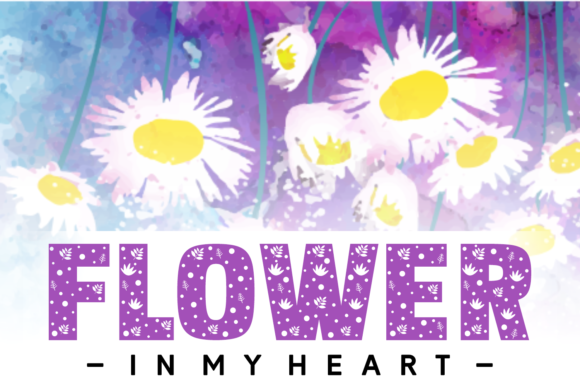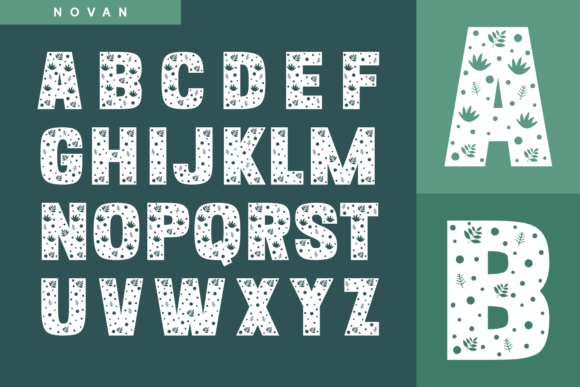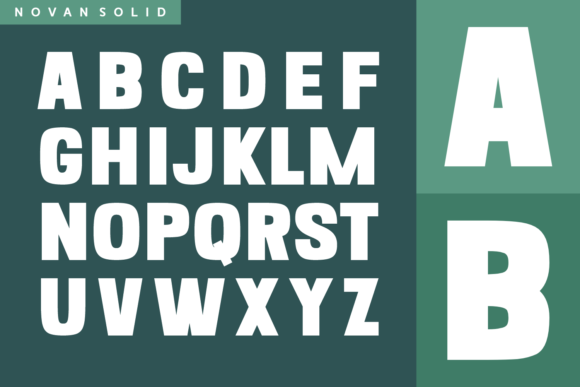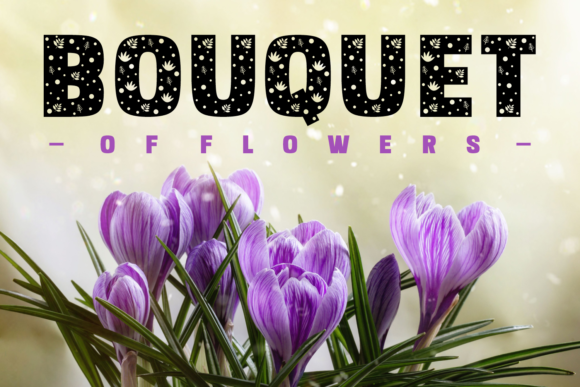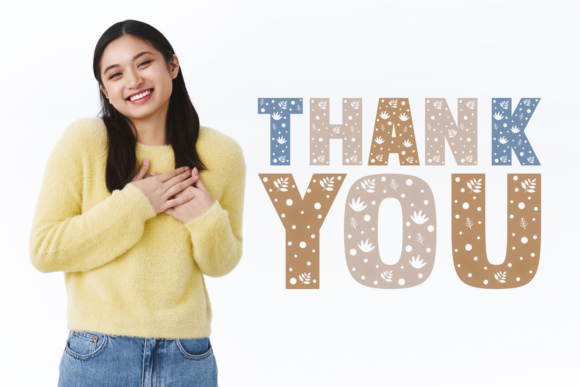
Introduction to Novan Duo Font Font
Fonts play a crucial role in design, and the Novan Duo Font font is a typeface that brings both character and versatility to any project. Whether you’re working on a branding project, a website, or a print design, the Novan Duo Font font offers a unique style that can elevate your work.
Novan is Duo decorative font inspired by nature with leaves and dots.
This duo font is available in the Solid and Regular versions It has an elegant and modern look that you can use for logos, branding, invitations, stationery, wedding designs, social media posts, and every other design.
Key Features of Novan Duo Font Font
Why Choose Novan Duo Font Font?
The Novan Duo Font font is more than just a typeface – it’s a design tool that helps you communicate your message with style and clarity. Its unique character set and versatile design make it suitable for a wide range of applications, from elegant invitations to bold headlines.
With its carefully crafted letterforms and balanced proportions, the Novan Duo Font font ensures readability and visual appeal across all mediums.
What makes Novan Duo Font font special?
The Novan Duo Font font stands out with its unique design, exceptional readability, and versatility across various design applications.